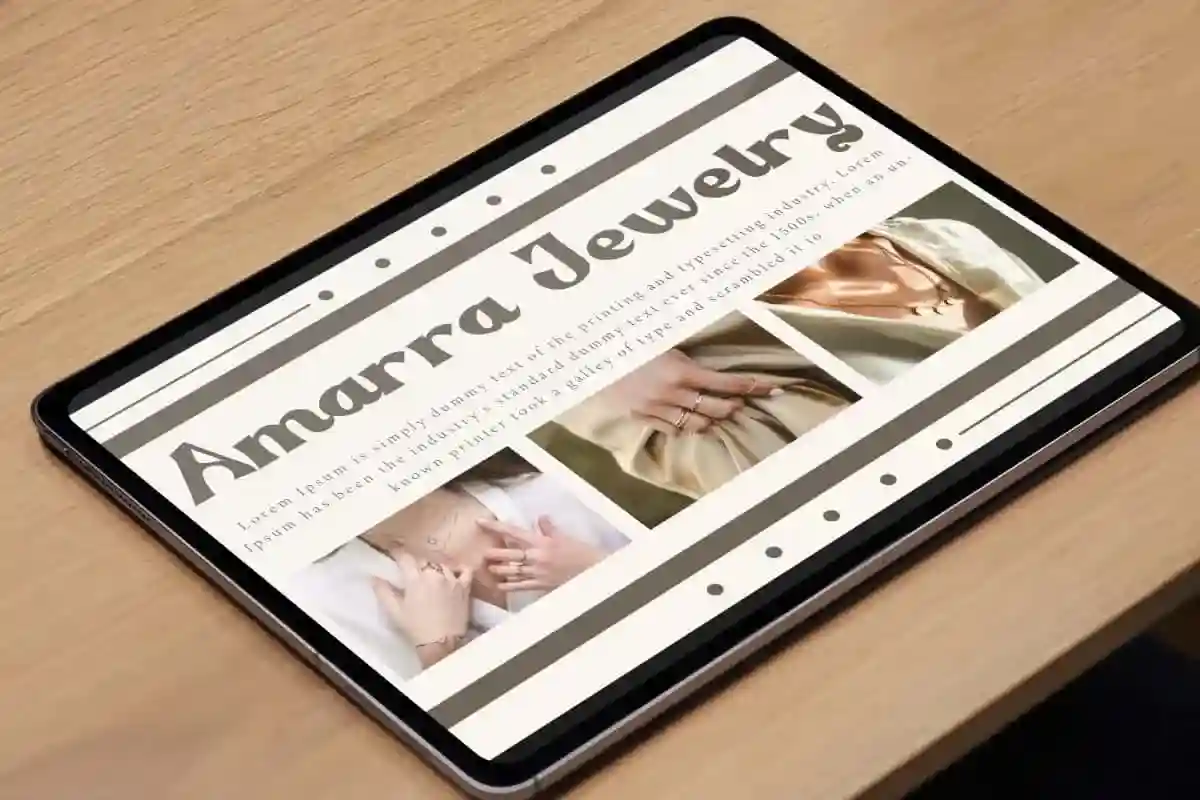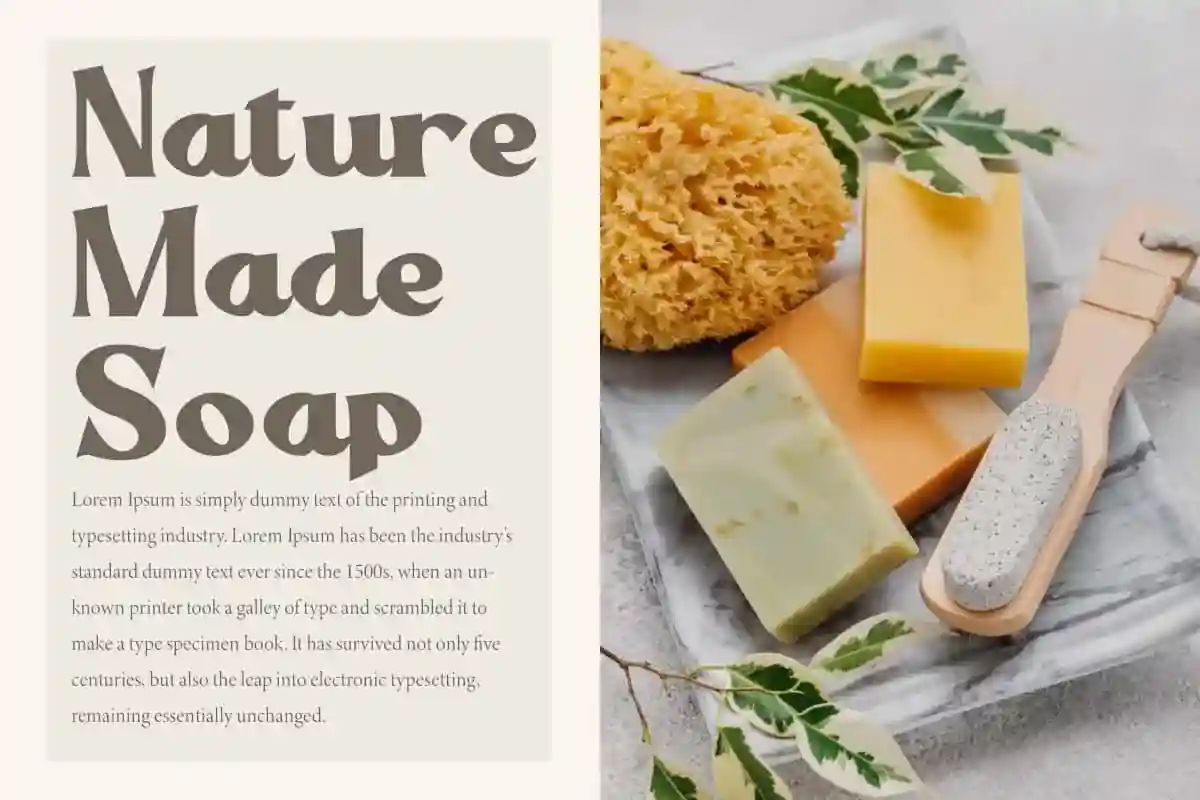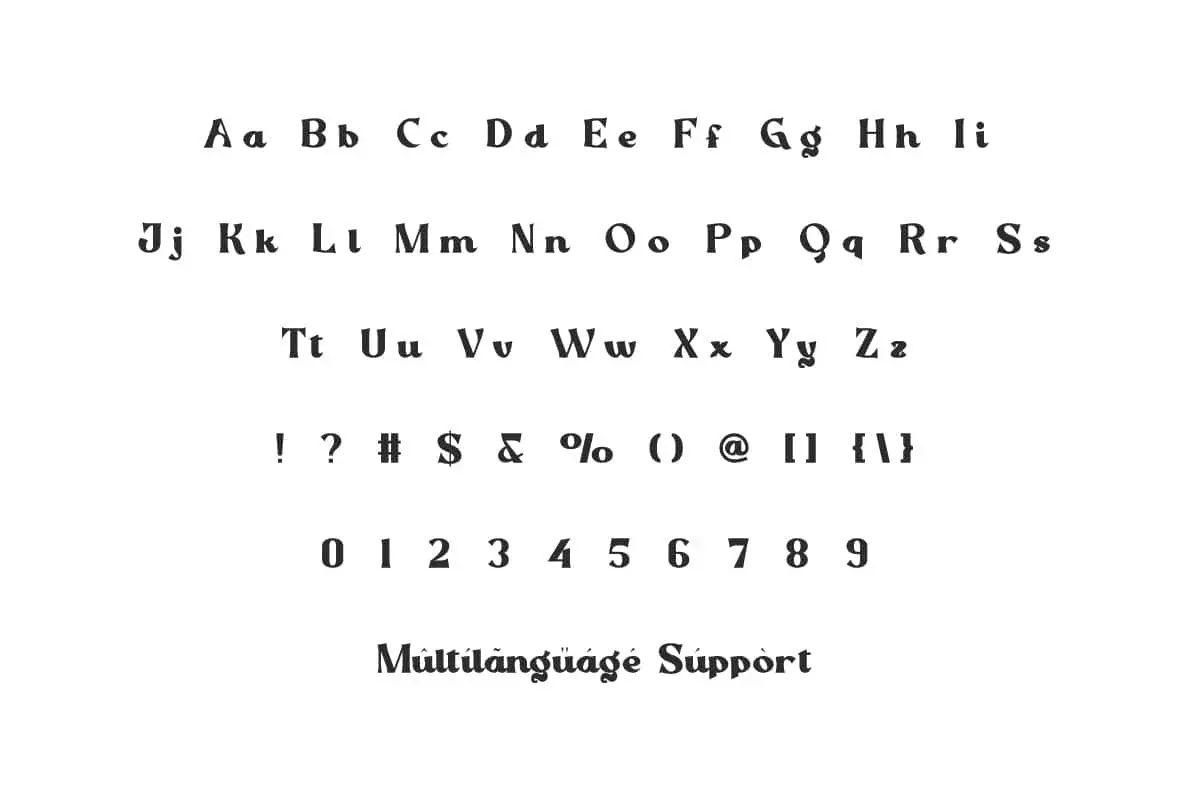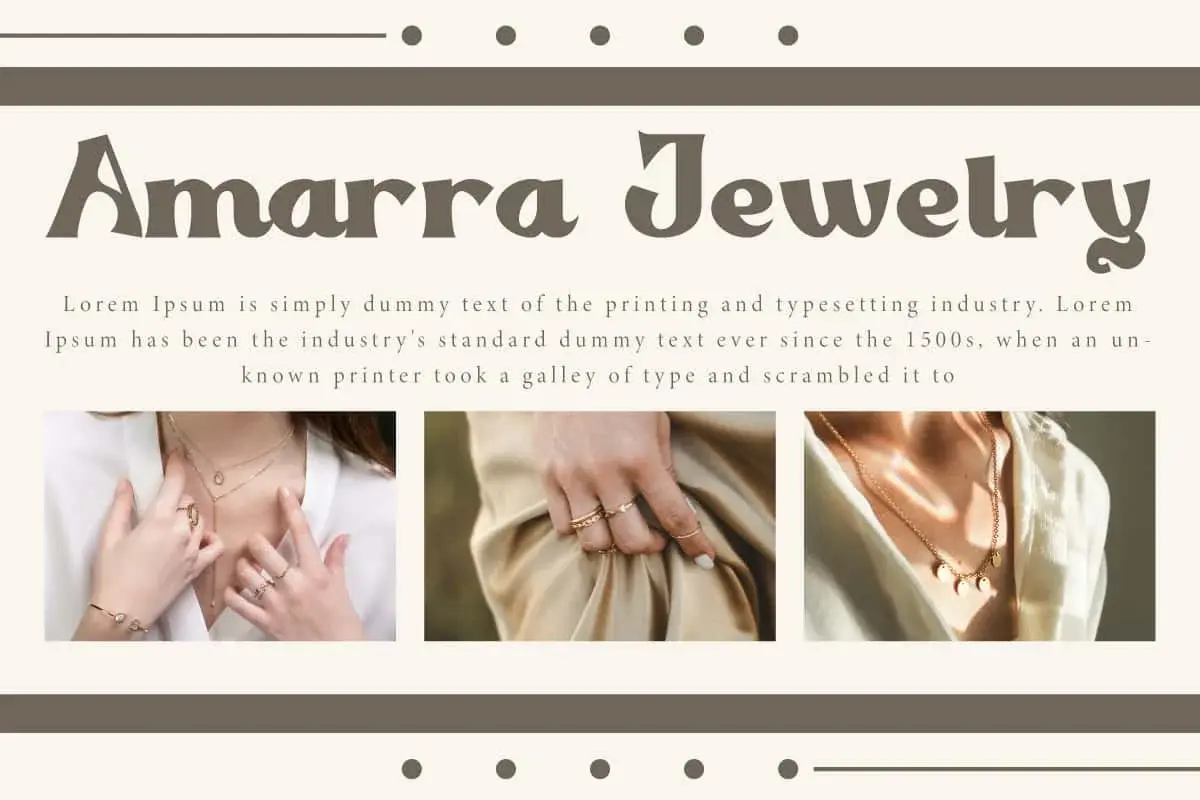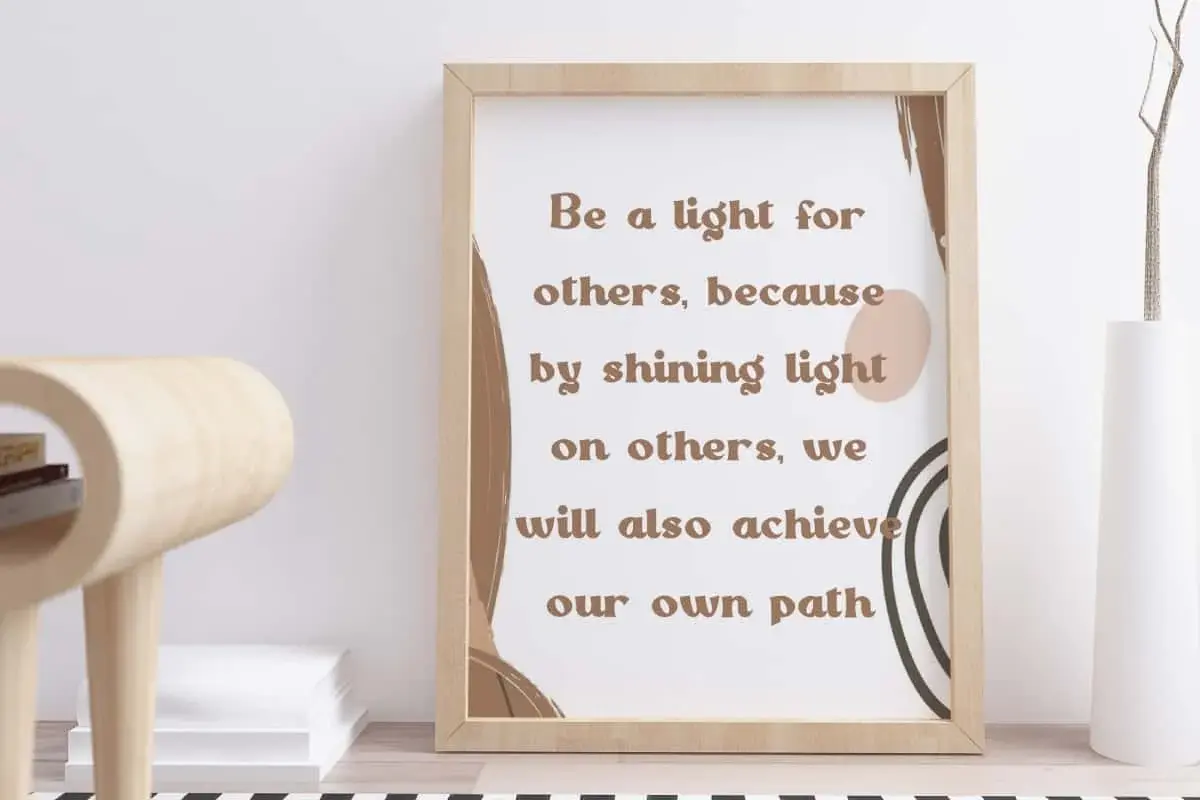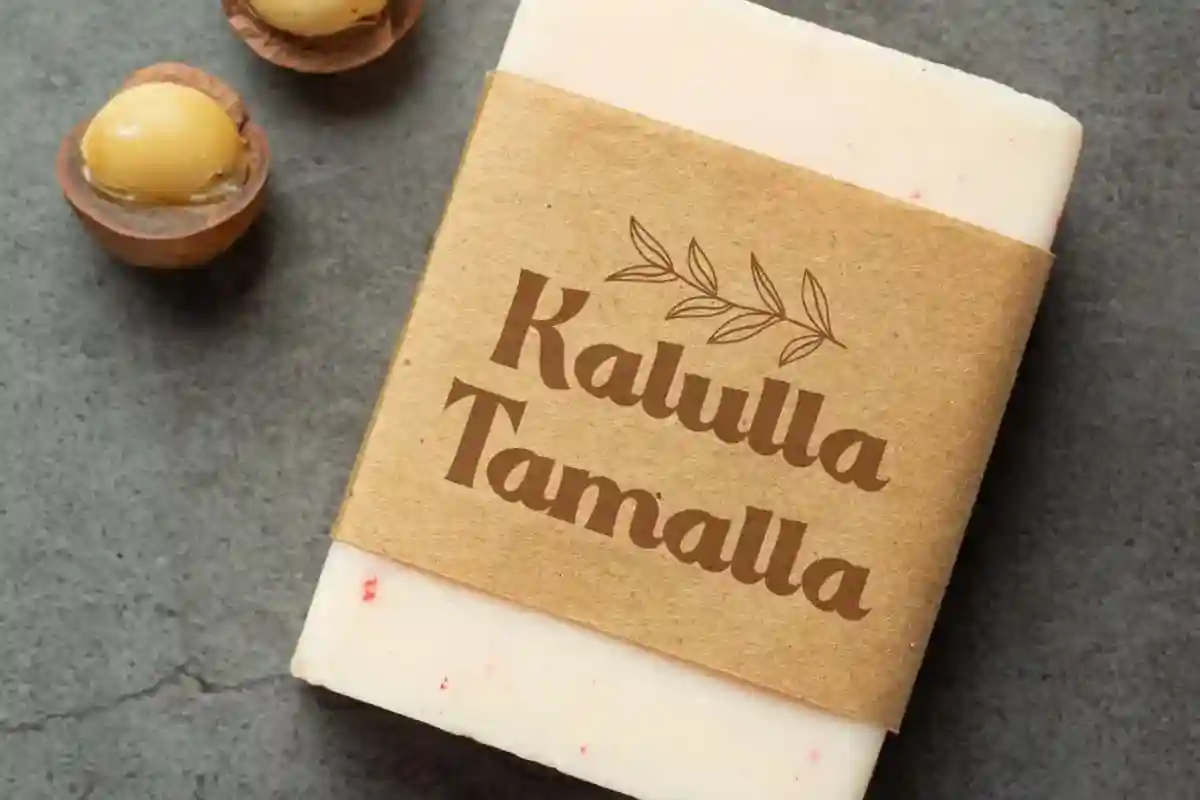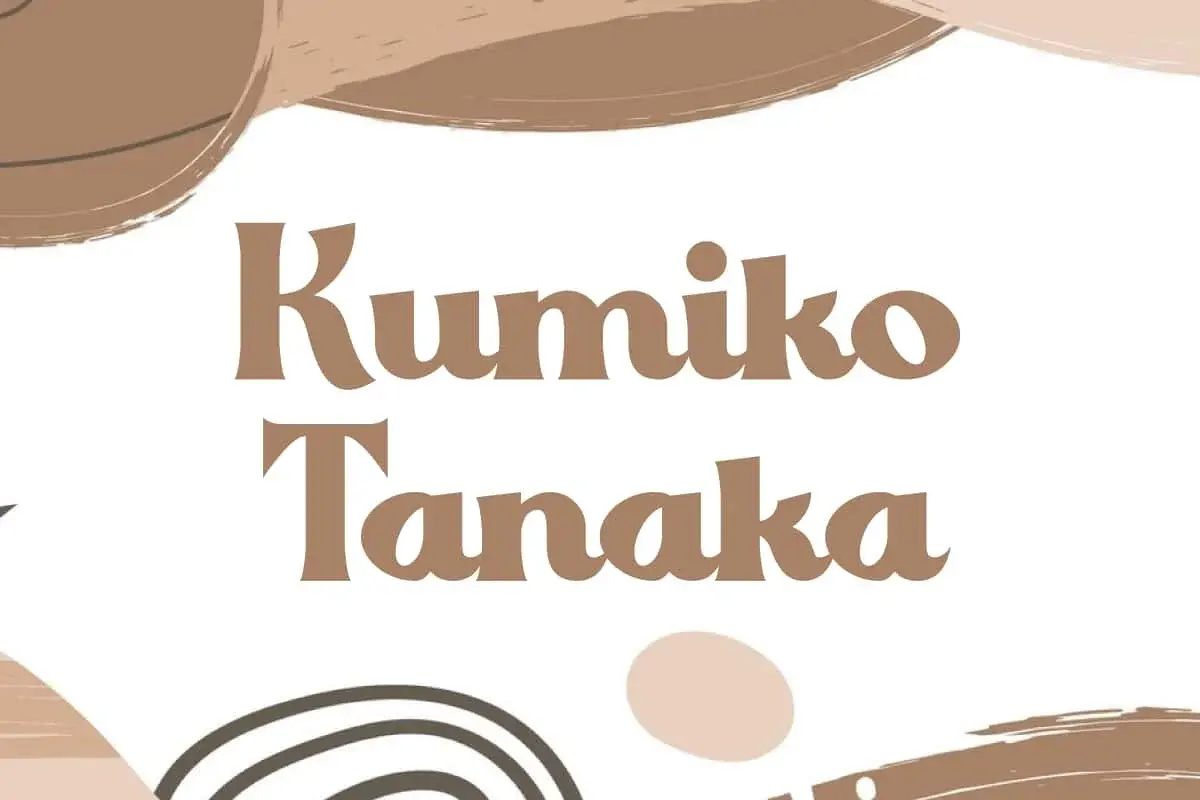
Kumiko Tanaka Font is a playful unique casual comic serif display font that transforms ordinary text into an extraordinary masterpiece.
Kumiko Tanaka Font is a playful unique casual comic serif display font designed with classic branding in mind. This beautiful font seamlessly blends classic charm with contemporary style. Perfect for apps, blogs, brochure, flyer, greeting cards, headers, invitation, logos, menus, mockup, product label, quotes, template, title, website, etc.
Kumiko Tanaka Font includes full set of Uppercase and Lowercase Basic Characters, Numbers, Punctuation, and Symbols. It will be very suitable for accessories and gifts, advertising, beauty product, boutique, fashion, graphic design, home furniture, jewelry, restaurant, spa salon, and more. Your perfect choice for unmatched looks and timeless beauty. Let your creativity shine!